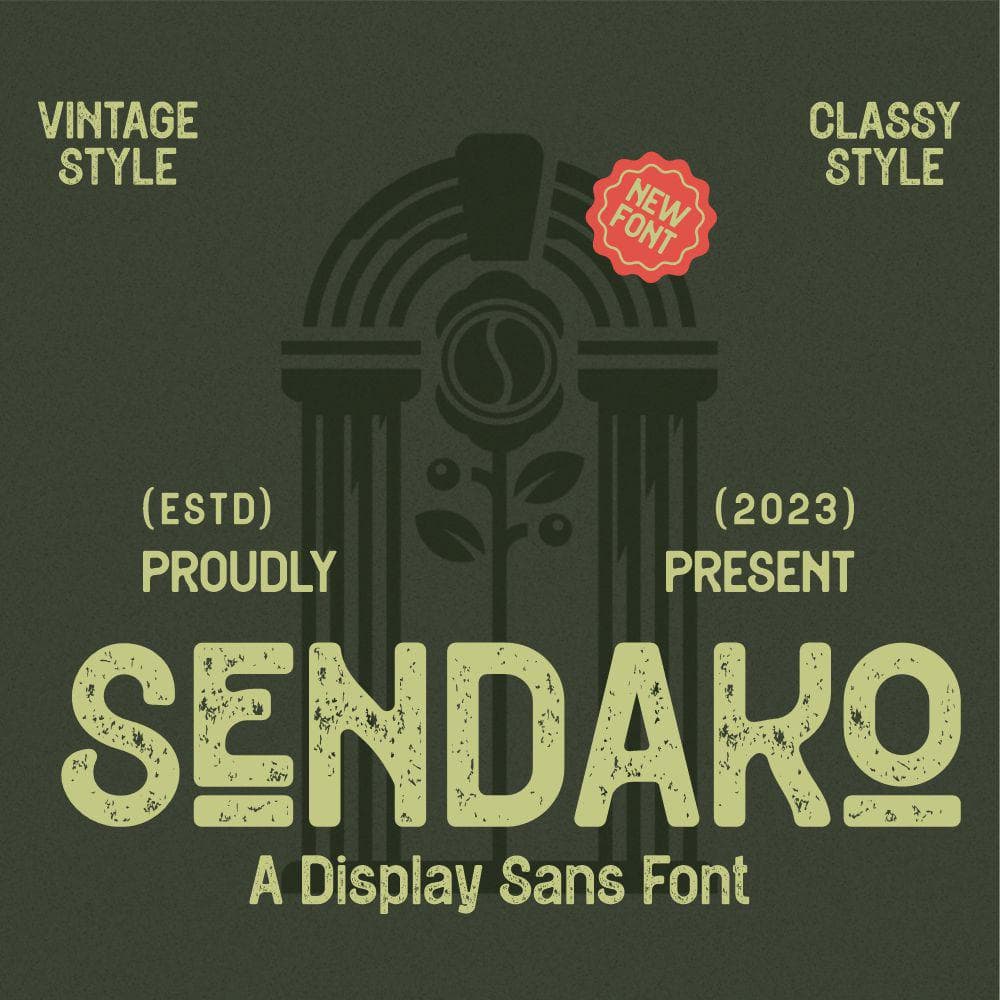
<p>Introducing *<em>Sendako *</em>is a vintage-style display sans-serif with a strong, bold presence. It features a slightly condensed letterform that enhances readability while maintaining a distinct character. The font comes in two variations: a clean, smooth version and a rough, textured version that gives a worn, aged look—perfect for evoking a nostalgic, handcrafted aesthetic. The rough variant adds a distressed effect, making it ideal for retro branding, packaging, posters, and signage. The typeface exudes a sense of heritage and authenticity, making it suitable for designs that require a classic yet modern feel. With its all-caps structure and versatile weight, this font strikes a balance between elegance and ruggedness, embodying a timeless appeal.</p>